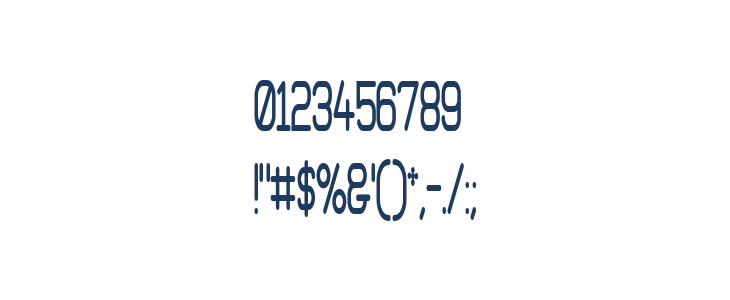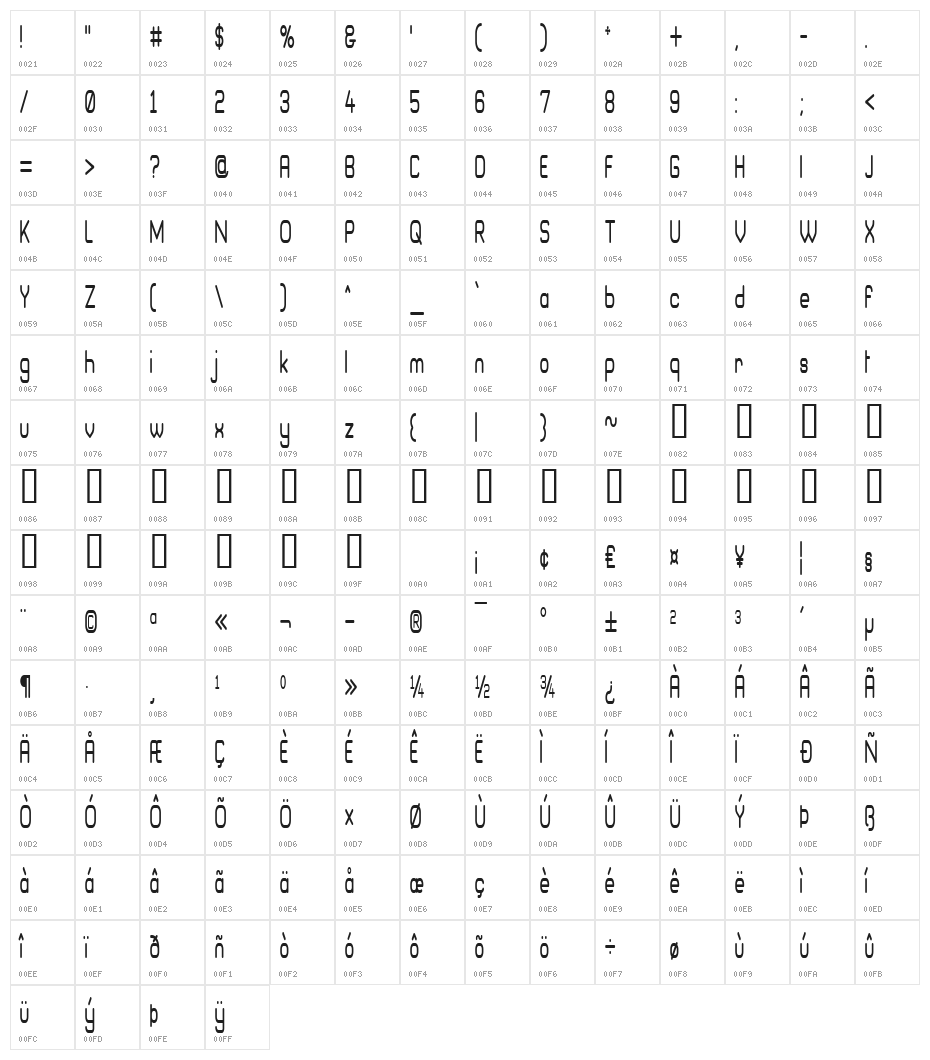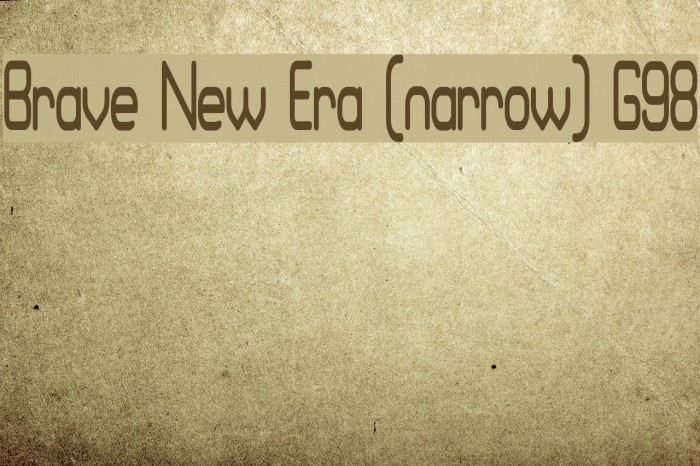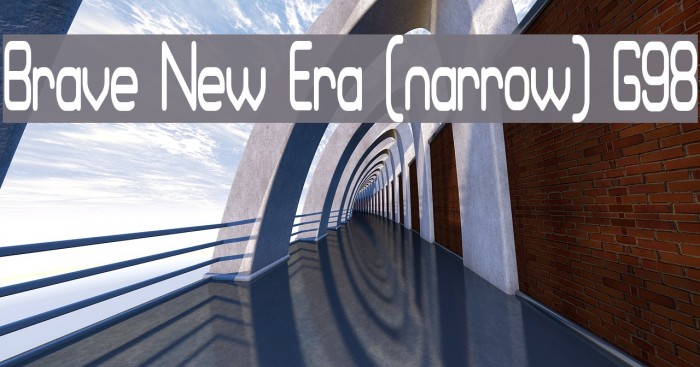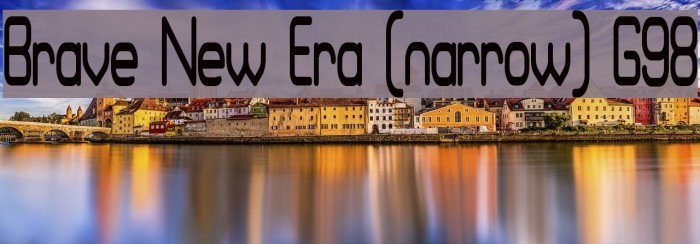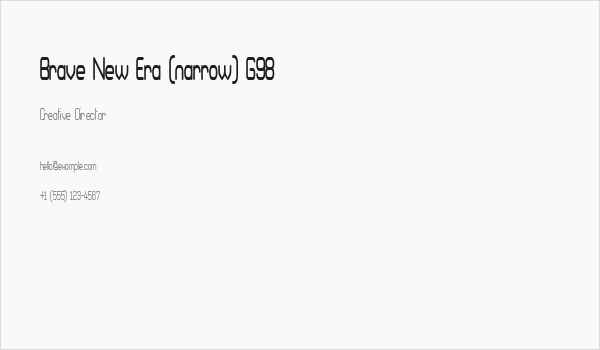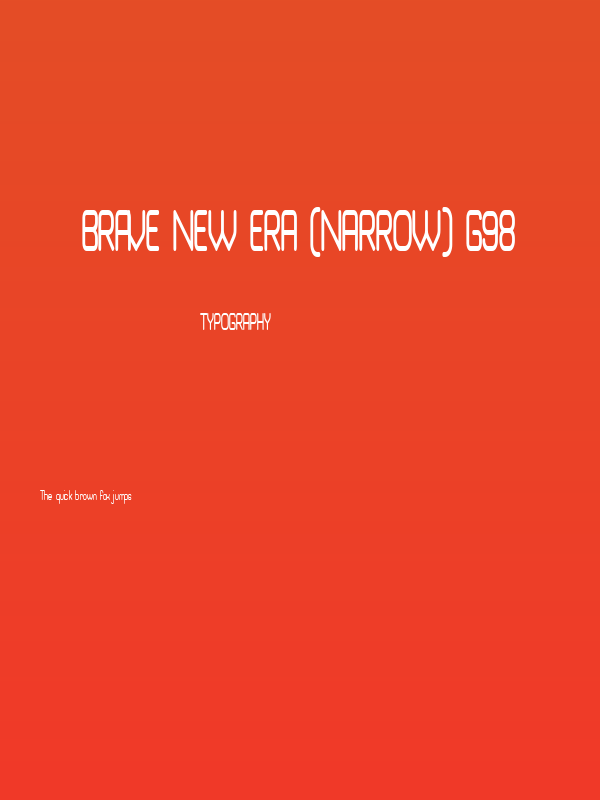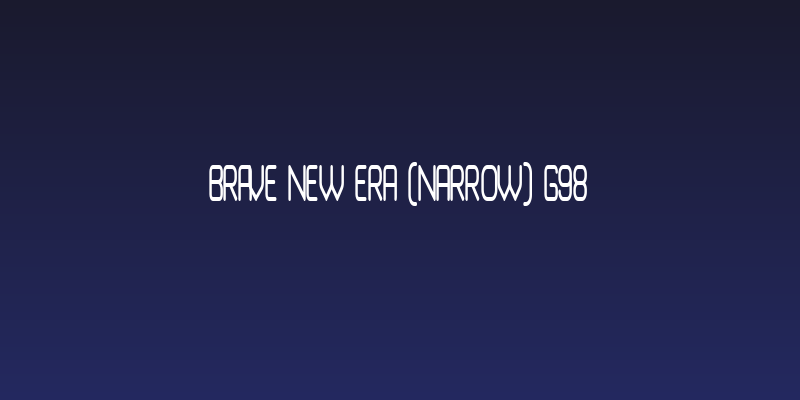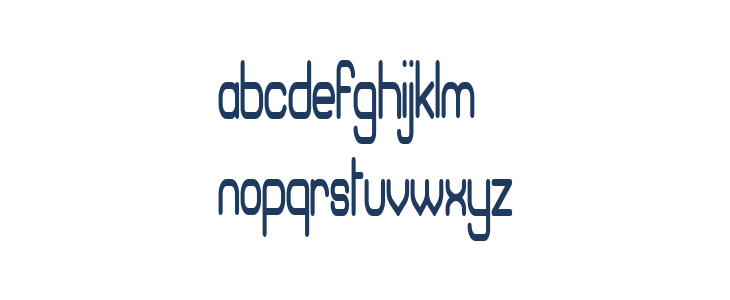
Brave New Era [narrow] G98 Font
Brave New Era [narrow] G98 Description
This font features a modern, geometric design with rounded edges and a narrow width. The characters are evenly spaced, providing a clean and organized appearance. The uppercase letters are tall and uniform, while the lowercase letters maintain a consistent height, enhancing readability. The numerals are distinct and align well with the overall style, making them suitable for various applications. Special characters are included, maintaining the font's cohesive look. This font's simplicity and clarity make it versatile for both digital and print media.
| Use Case | Headlines, Logos, Digital interfaces |
| Proposed Projects | Ideal for tech branding, digital interfaces, modern posters, and minimalist design projects. |